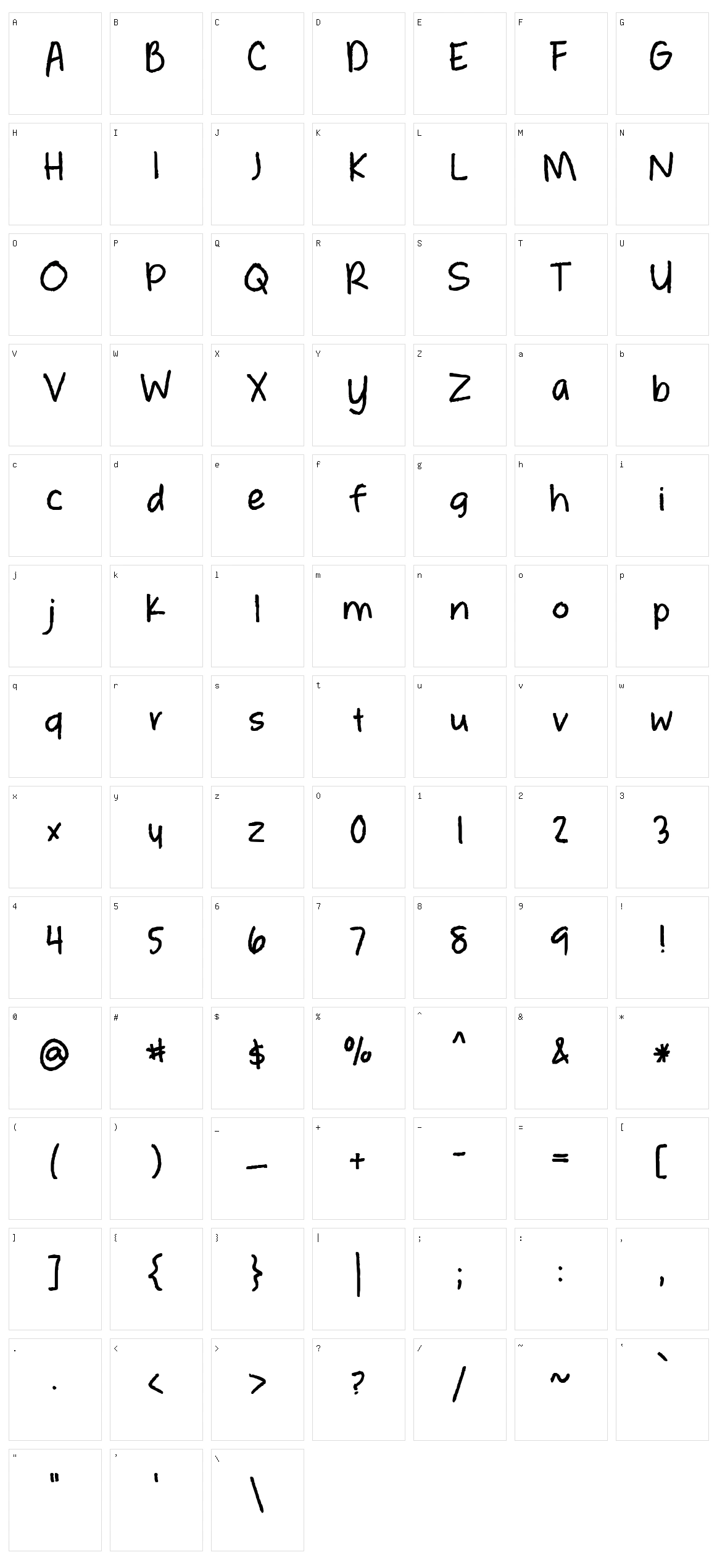
The free font Whatever it takes is carefully designed by Brittney Murphy Design, showcasing a thoughtful balance of creativity and usability and falls under the Script font style. When you download the ZIP file, it contains only 300.37 KB of font files, making it lightweight and quick to download. Please review the license details below to understand permitted usage and distribution rights. If license information is not available, we recommend using this font for personal projects only or contacting the author directly for commercial usage permissions.